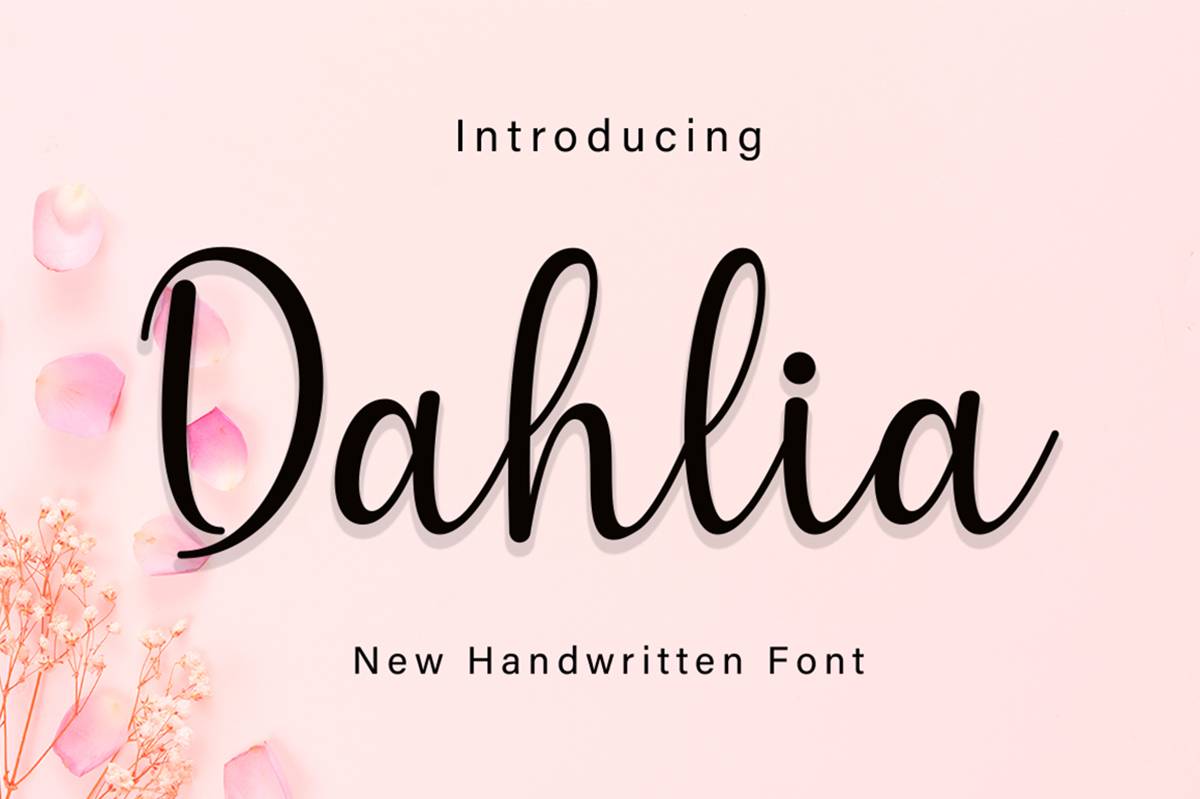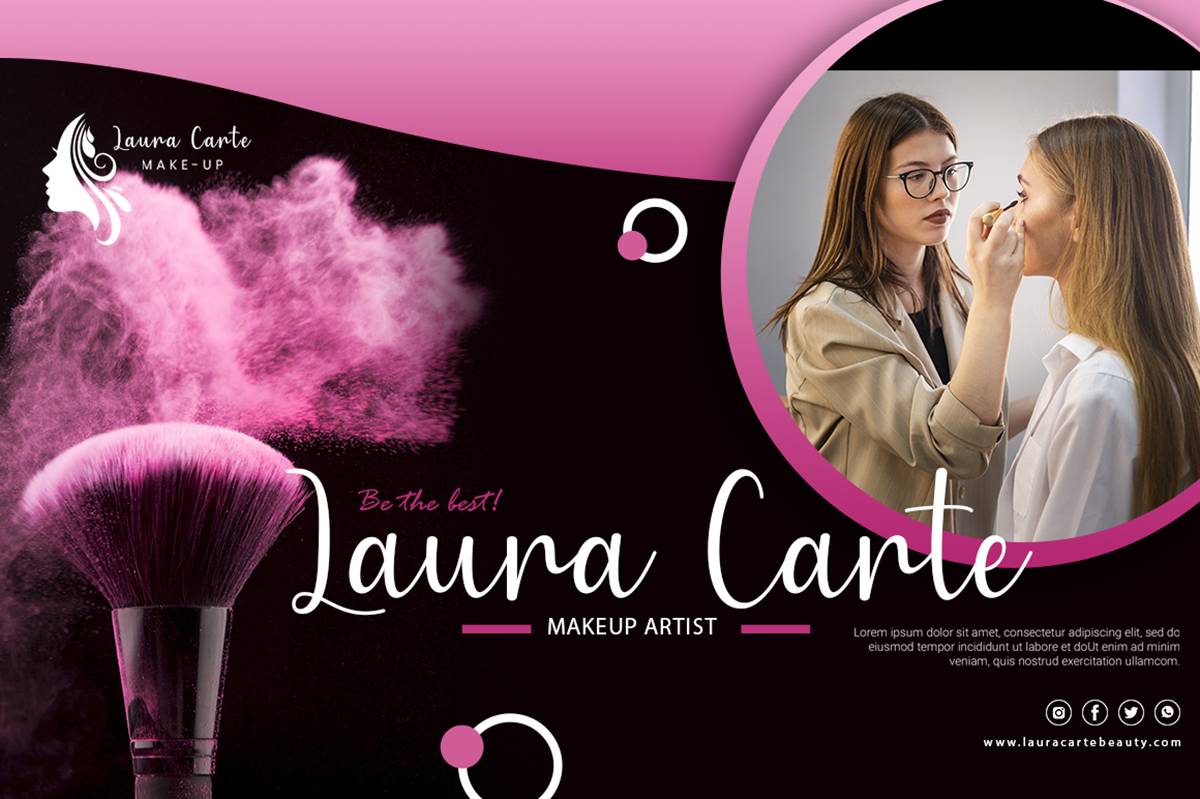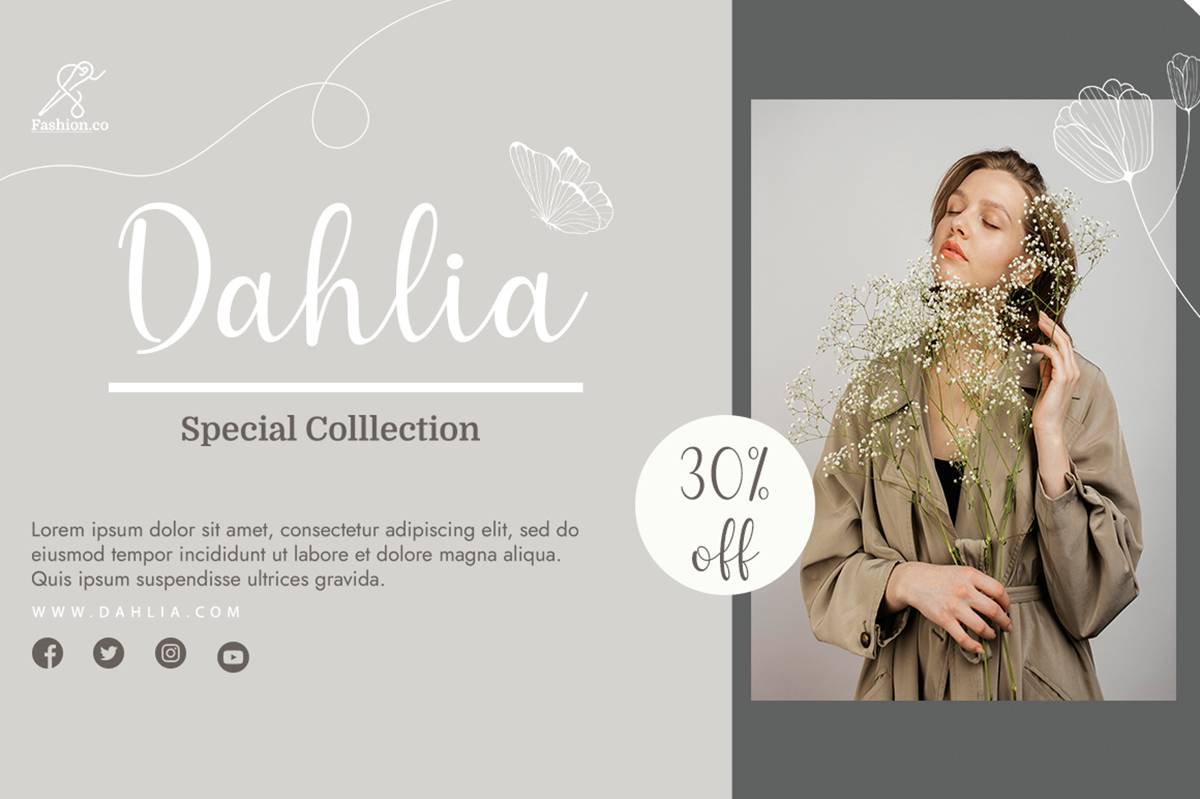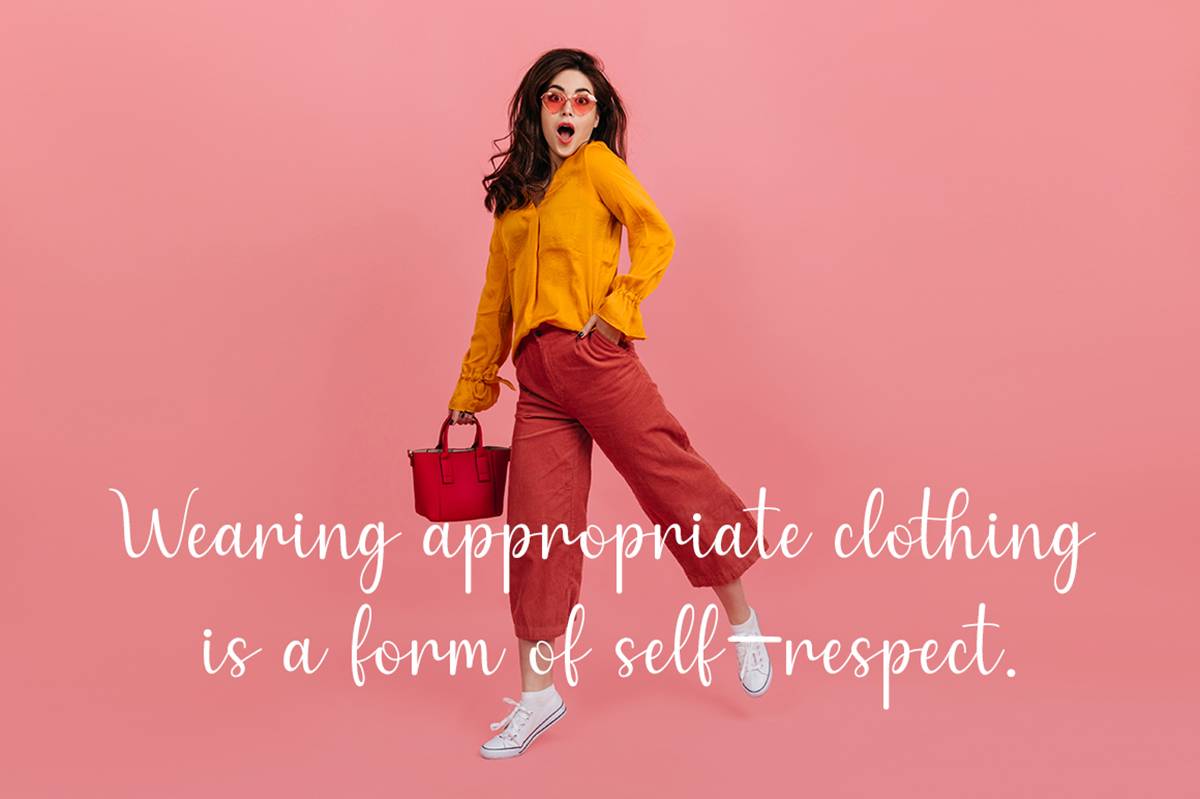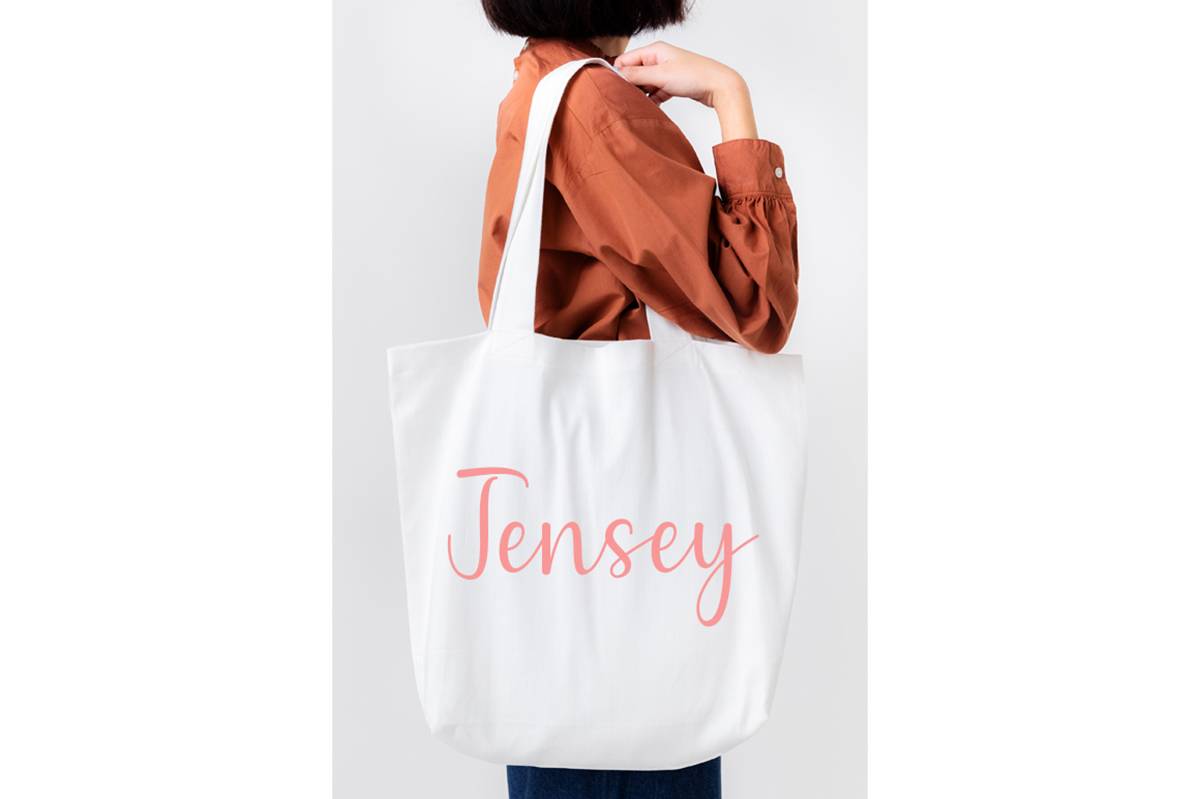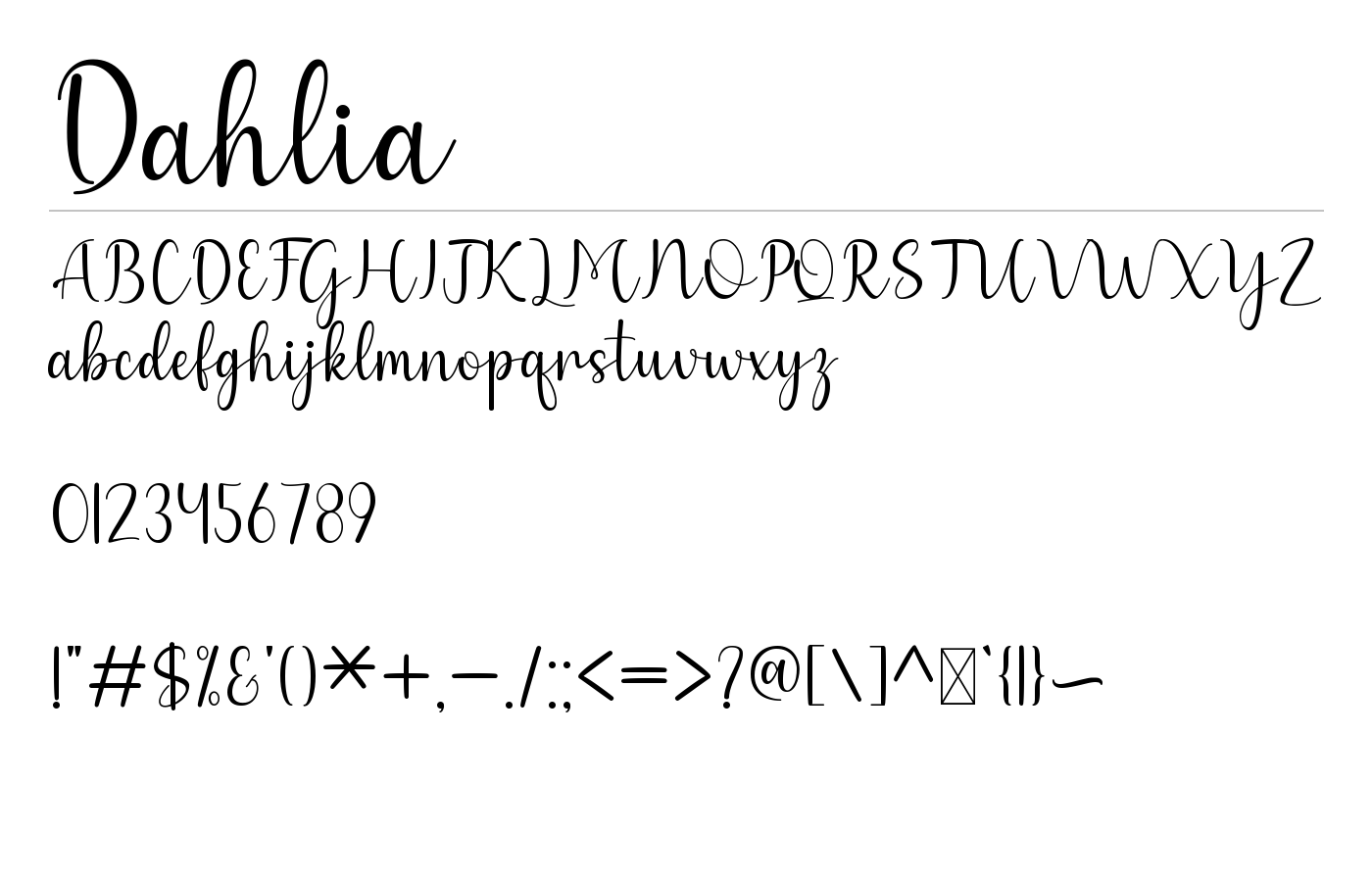
Dahlia is a delicate and elegant script font with a light weight and smooth, flowing letterforms that convey a charming, handwritten feel. Its tall x-height and slender strokes give it a graceful and feminine personality, making it ideal for invitations, branding, and editorial projects that seek a touch of sophistication and warmth. This font works especially well for fashion, beauty, and lifestyle designs where a refined yet approachable style is desired.
Dahlia Font
About Dahlia Font